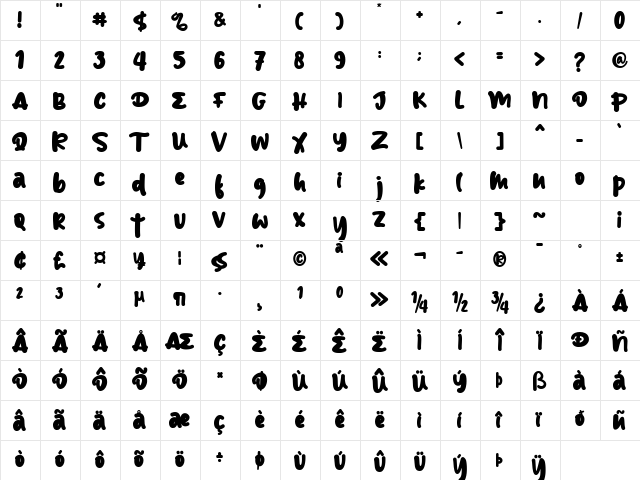
Cuddle Bunny Regular
| Designer | Stefani Letter |
Design Context for Cuddle Bunny Typeface
Cuddle Bunny is a composed and adaptable typeface that performs quietly and consistently across a wide range of design contexts.